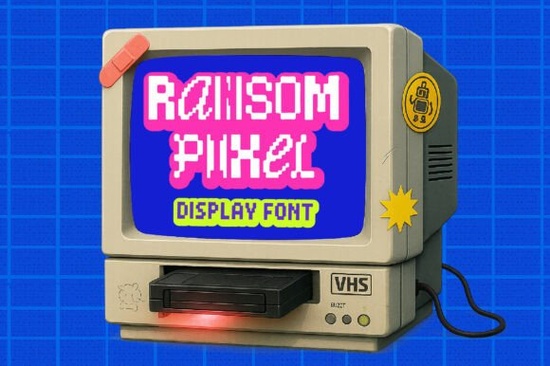
If you create designs for indie games, retro merchandise, or striking event posters, you know the right typeface can tie everything together. Ransom Pixel Font is a display typeface built from four distinct pixel cuts giving you a ransom-note aesthetic with a clean, blocky edge. Instead of a single style, you get multiple layers that can be mixed together, which makes it simpler to create custom, contrasting typography without juggling too many separate files.
What exactly is a pixel ransom font?
A pixel ransom font mimics the cut-and-paste look of traditional ransom notes, but replaces paper texture with square, digital pixels. Think old-school arcade titles mixed with a gritty street art feel. Each letter is formed from a grid, so the result is sharp and exact. Ransom Pixel Font doesn’t rely on random letter cutouts it gives you four coordinated pixel-styled cuts so you can build words that look deliberately mismatched while still feeling cohesive. This removes the guesswork of trying to combine fonts that don’t share the same pixel dimensions.
Who should use Ransom Pixel Font?
The font speaks directly to print-on-demand sellers, indie game developers, crafters, and small business owners who lean into nostalgic themes. If you design T-shirts for gaming events, twitch overlays, YouTube thumbnails, or retro-inspired sticker packs, having a display typeface that instantly triggers a vintage gaming memory is a huge advantage. Creative hobbyists making party invites or custom merchandise also find this style easy to work with because it feels playful without looking amateurish.
How do the 4 built-in cuts work?
Rather than releasing one uniform font, Ransom Pixel Font includes four separate cuts that all share the same pixel grid. You can use a single cut for a straightforward look, then swap specific letters to another cut for emphasis. For example, you might set most of your headline in the main cut but switch vowels to a chunkier or thinner variation. The technique gives your text a handmade, collaged rhythm while keeping everything perfectly aligned at the pixel level. If you’re working in a design app that supports layers, you can even stack two cuts with different colors for a subtle 3D shadow effect something very popular in gaming merchandise right now.
Where can you implement this font?
Because the font is pixel-based, it fits naturally in any project that needs a low-resolution, screen-printed vibe. Some of the most common uses include:
- Gaming event flyers and tournament brackets
- Indie game title screens and dialogue boxes
- T-shirts, hoodies, and tote bags for retro arcade fans
- YouTube channel art and stream overlays
- Sticker sheets and printable planner decals
- Social media graphics for throwback-themed campaigns
It also works well for editorial headers on blogs or zines that tap into digital nostalgia, as long as the audience appreciates a bit of playful roughness. You can see the kind of visual impact Ransom Pixel Font creates in design showcases where creators experiment with cut-up typography Ransom Pixel Font often stands out because of its consistent pixel logic behind the chaos.
Which other display fonts pair well with it?
Pixel fonts can feel hyper-specific, so pairing them with a secondary typeface gives you more range. I usually recommend choosing a font from a completely different visual category to create a clear hierarchy. For instance, if you need a handwritten cursive touch for subheadings or small badges, Roadscript brings smooth strokes that offset the blocky ransom cut nicely. Another option is stacking a compact, all-caps font behind the pixel letters. Thick Stacked does that job well because its bold, compressed structure doesn’t fight the ransom aesthetic. If your project leans toward a wild west or rugged theme, the worn edges of Dusty Cowboy can add a completely different texture while still matching the raw energy of the ransom style.
Sometimes you might need a typeface that feels futuristic and layered. Spiritwave Stacked has a neon, synthwave personality that pairs unexpectedly well with pixel cuts for retro-futuristic posters. And when you want something mythical yet easy to read at small sizes, Greek Odyssey offers a historic, engraved quality that creates an interesting contrast with digital pixel art. None of these compete directly with Ransom Pixel Font; they complement it by filling different design roles.
Does it work for print and digital?
Yes. Because the letterforms are clean rectangles, Ransom Pixel Font stays crisp on screens and in print provided you use a high enough resolution. For digital work like stream overlays, it looks sharp at native pixel resolution. When preparing print files for T-shirts or posters, make sure to export at 300 DPI and convert the text to outlines so the pixel edges remain exact. This font also plays well with metallic or neon ink effects on dark apparel, a favorite combination for print-on-demand stores selling retro gaming merch.
What should you check before using it?
A quick balance check can save time. The mixed-cut look is powerful, but too much variation in a single word can become hard to read. Test your design at the final size, especially on mobile screens. Also, this is a display font, not a body text font limit it to headlines, titles, and short quotes. If your project requires long paragraphs, use a simple sans-serif like Inter or Montserrat for the reading portion, and let the ransom font grab attention in the hero section.